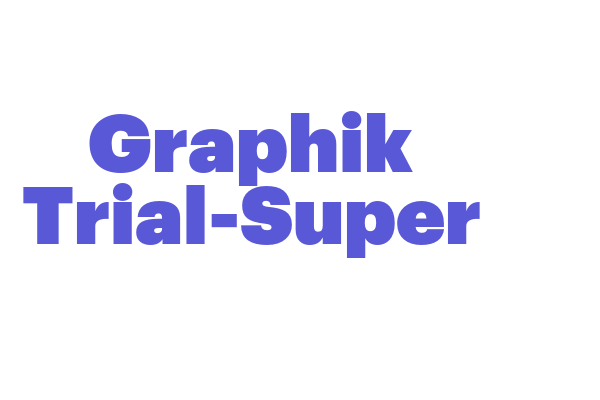
Graphik Trial-Super is a sleek and modern sans-serif font designed by Christian Schwartz. Part of the Graphik Trial font family, it offers a clean and minimalist style perfect for a wide range of design projects. Ideal for conveying a contemporary and professional look, this font is well-suited for branding, editorial design, and digital applications.
Font Name: Graphik Trial-Super
Designer: Christian Schwartz
Font Family: Graphik Super Trial